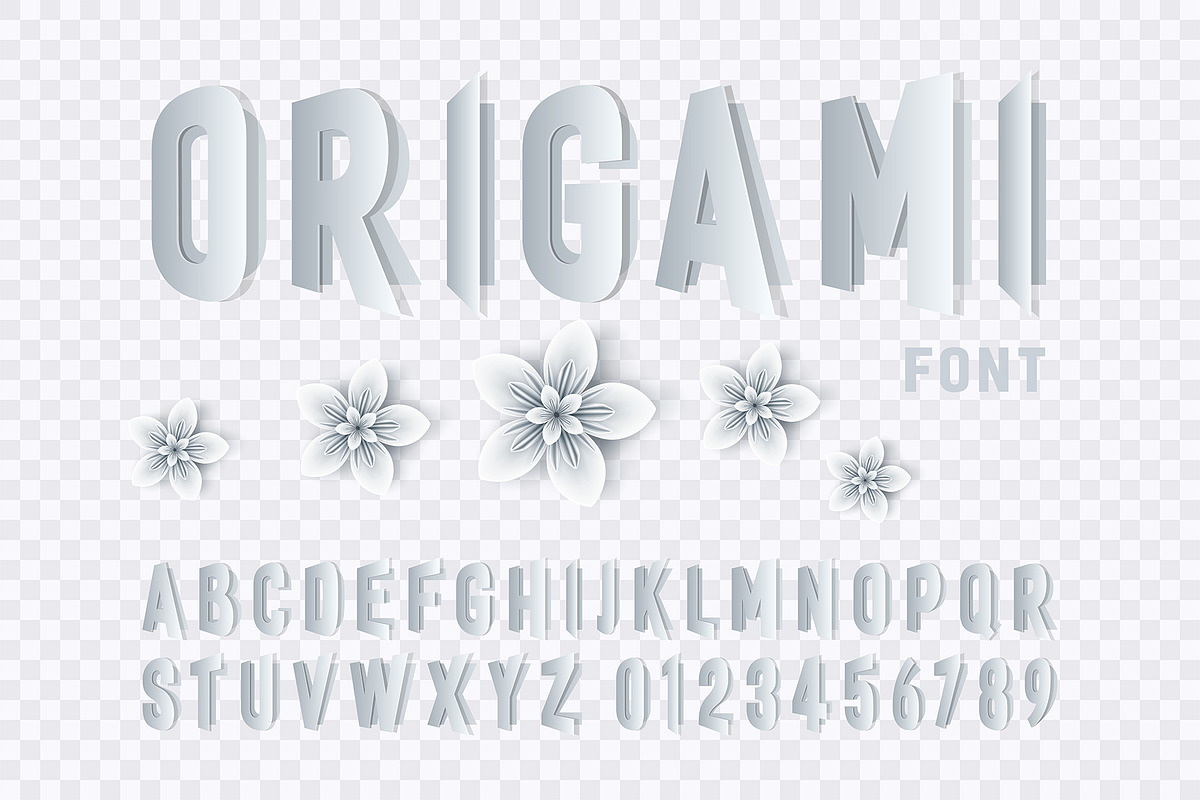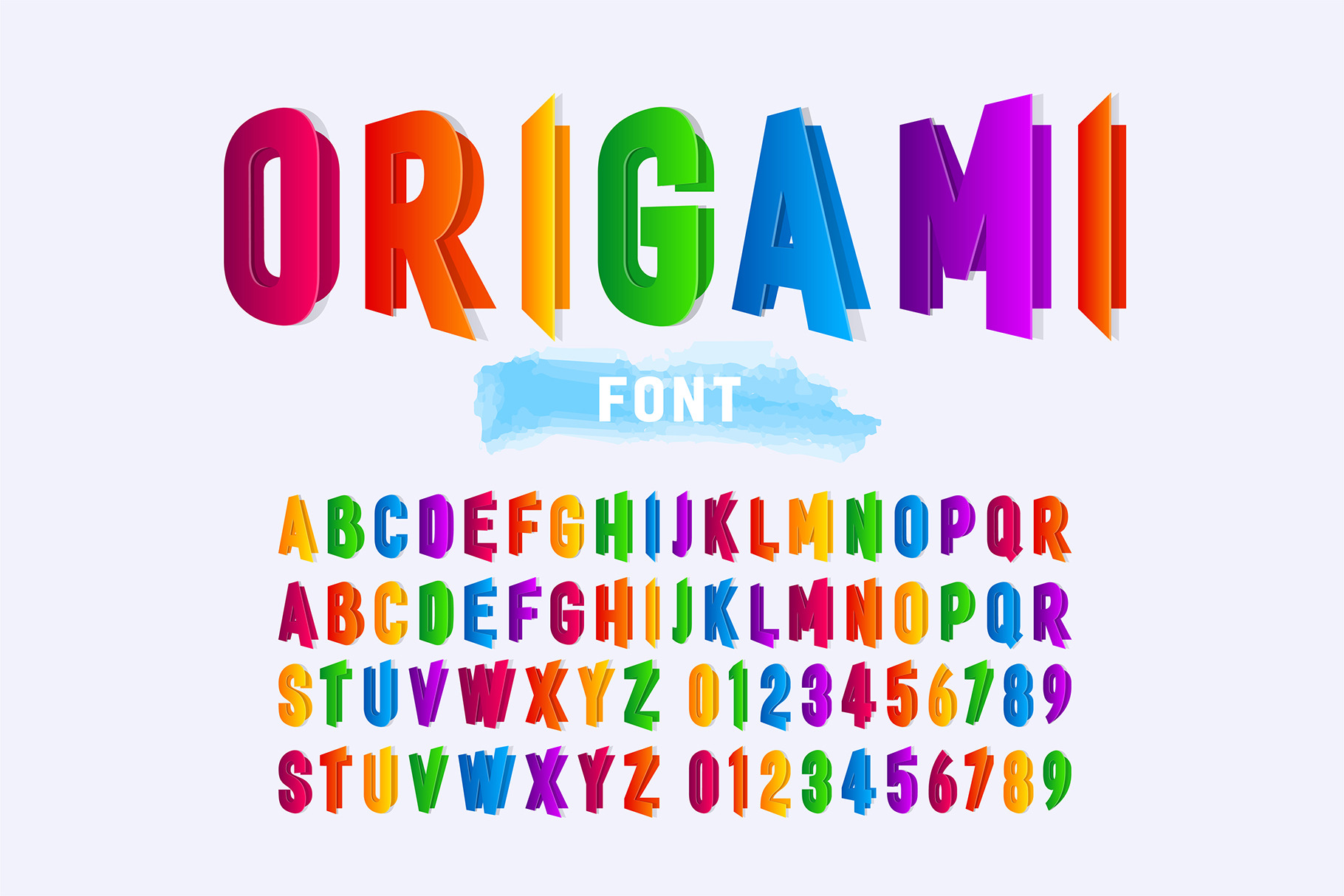
Origami Paper Alphabet Font
Origami Paper Alphabet Font. Multicolored and Grey Decorative Folded Letters and Numbers in Modern Paper Style for Creative Design - EPS (Not a Font!)
- Uppercase letters A - Z
- Numbers 0 - 9
- Clean, modern, and unique alphabet design